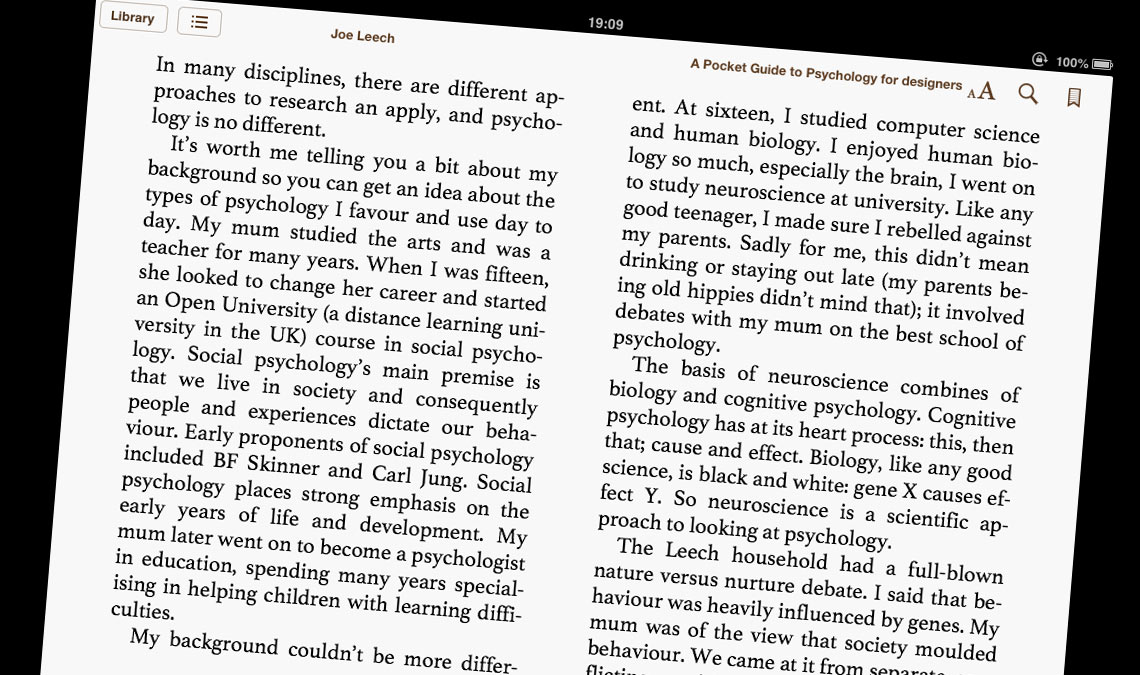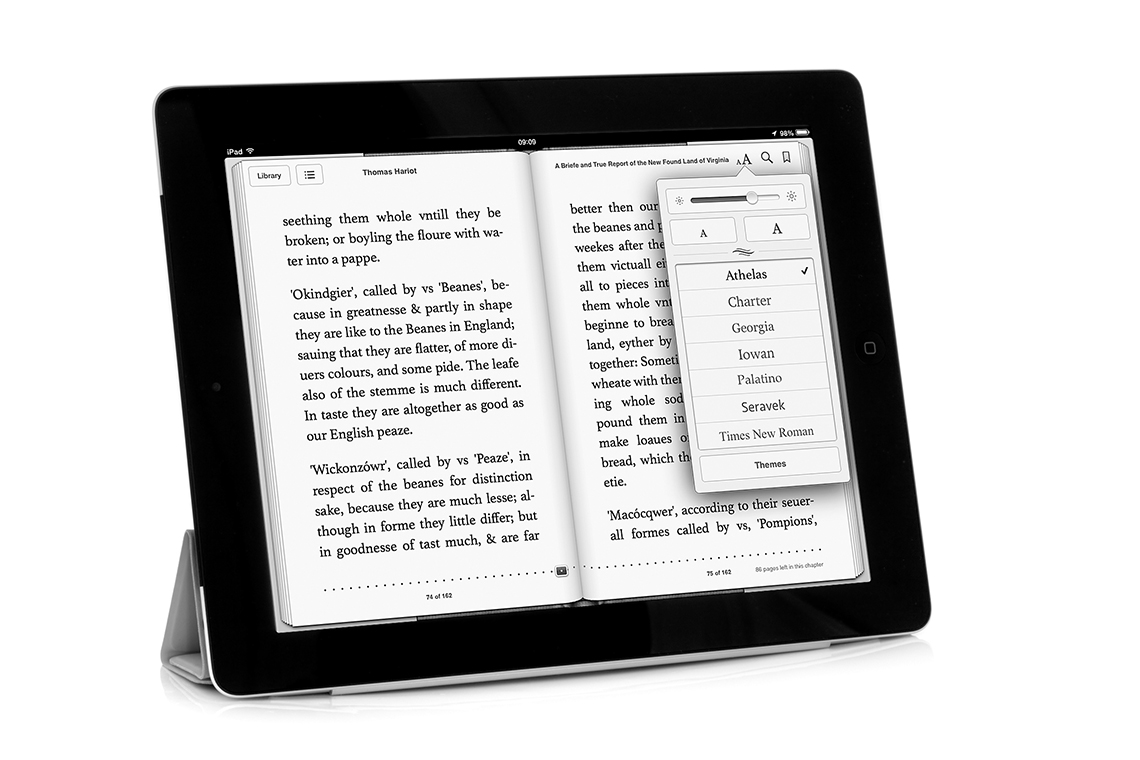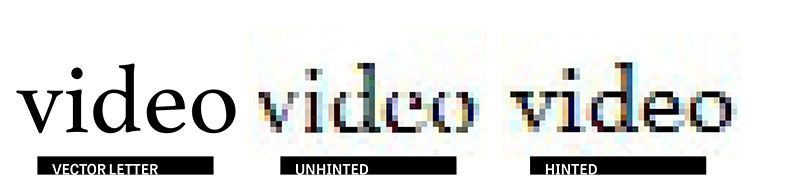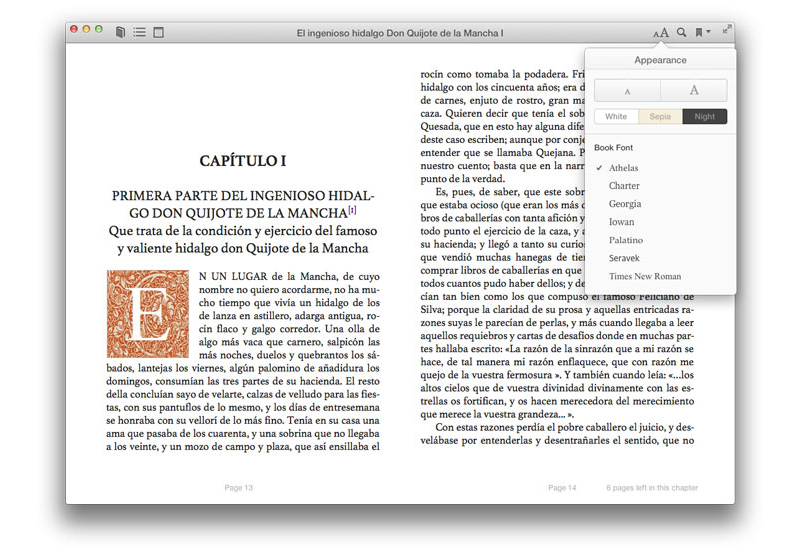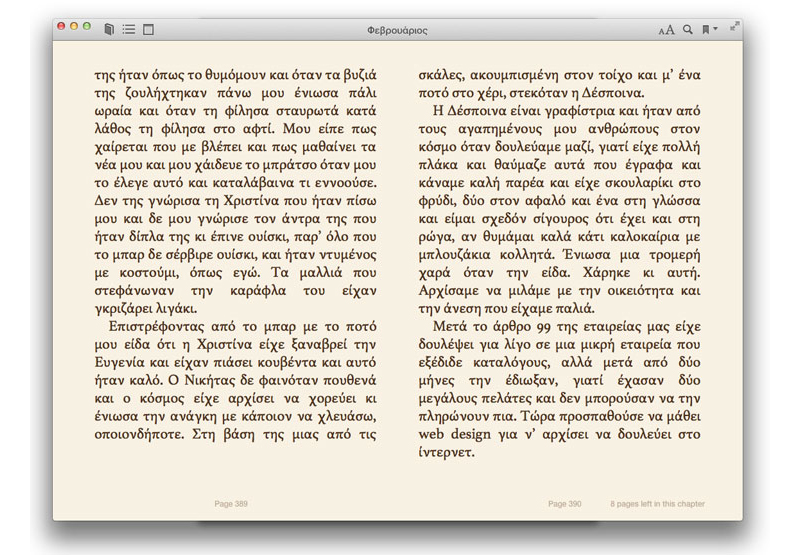
Apple Chooses Athelas for iBooks
The Typography unit at Apple requested a version of our Athelas typeface to include in their successful e-book reader, the iBooks mobile app. A character set extension was needed so that Athelas would support dictionaries, scholarly journals, and publications in different languages. The language extension requested by Apple includes several additions to the Latin A range, Latin B (used in languages from Africa and Southeast Asia), Polytonic Greek, Extended Cyrillic, and full International Phonetic Alphabet (used in dictionaries and other academic texts). As a result, Apple’s Athelas is bursting with over 2400 glyphs while the retail version has 950.
A tailored expansion of TypeTogether's Athelas font package
screen optimising process
Later on Apple Inc. decided to ship the customised version of Athelas with their Mavericks operating system. TypeTogether produced a screen-optimised version (hinted) that can perform on the web and on additional operating systems.
Hinting is the process by which fonts are adjusted for optimal rendering on computer screens. Hinting uses mathematical instructions to adjust the display of a font’s outline so important parts of lettershapes such as stems or x-height appear consistent on a low resolution grid. At low screen resolutions, hinting is critical for producing clear, legible text.
A tailored expansion of TypeTogether's Athelas font package